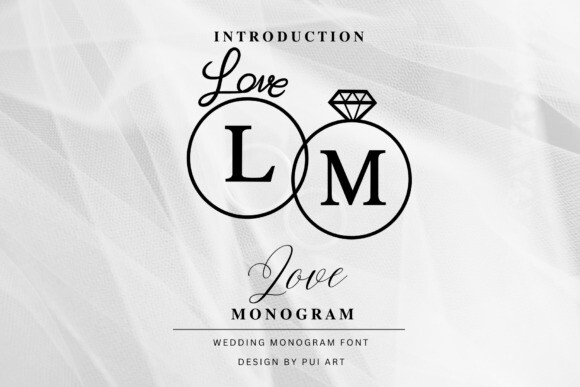
Love Monogram Font
Whether you’re a wedding planner or getting married yourself, it’s a magical event that everyone wants to remember forever.
Love Monogram can help set you apart from others at the party, evoke emotional responses from your audience, and help make your brand (or special day) more memorable. Love Monogram for beautiful wedding logo inspiration, as well as best practices when it comes to designing your own wedding logo.